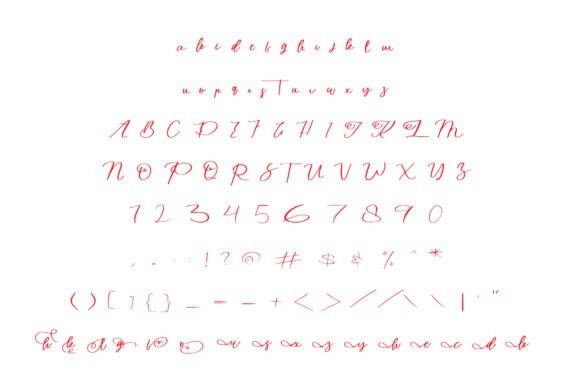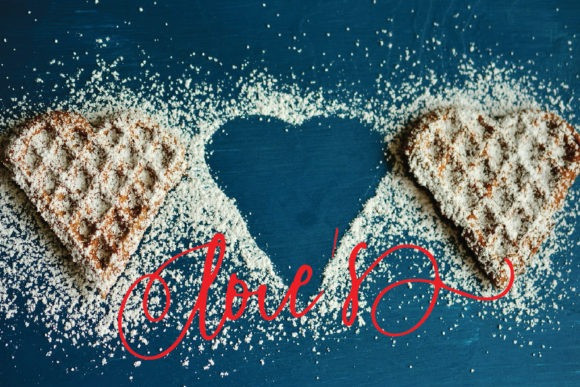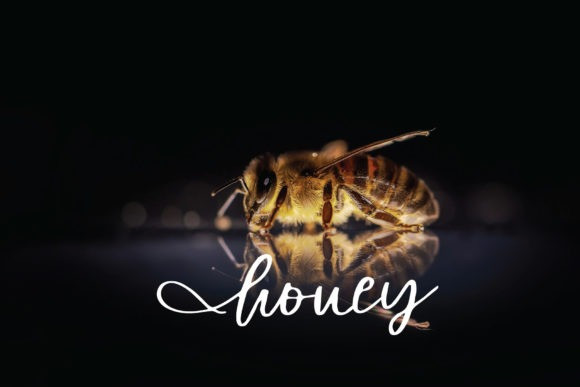
Callista Script Font
Callista is a lovely and timeless handwritten font. It is the best choice for creating eye catching logos, branding and quotes. This font is PUA encoded which means you can access all of the amazing glyphs and ligatures with ease!